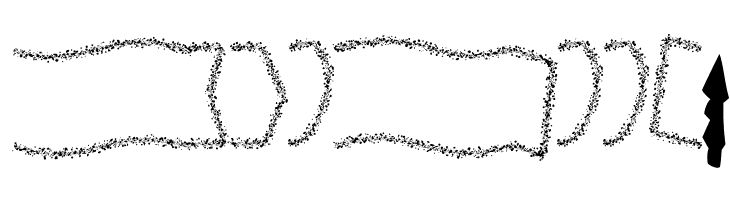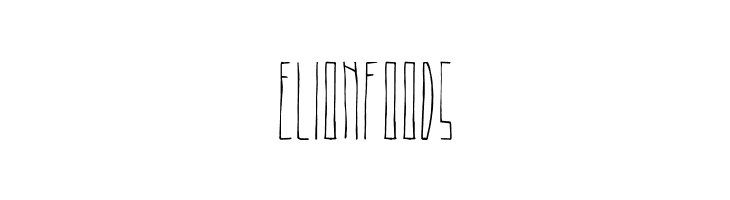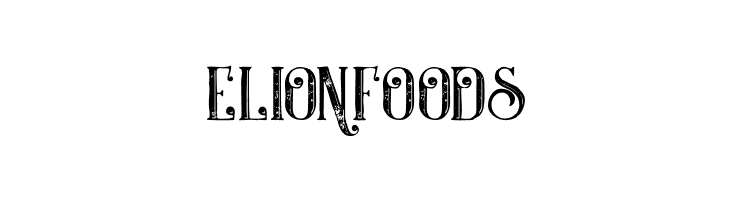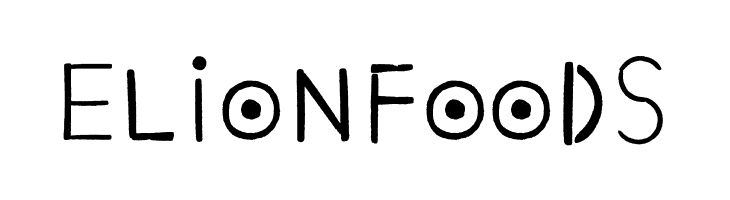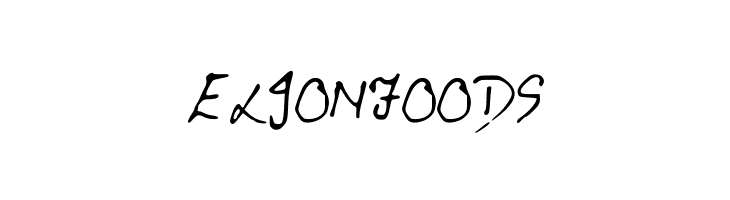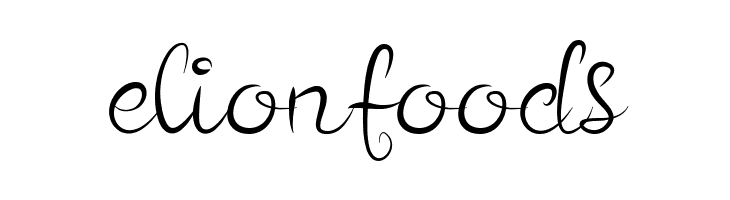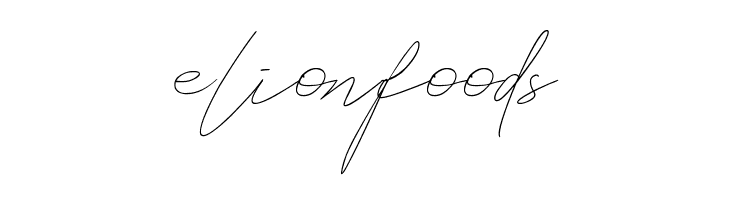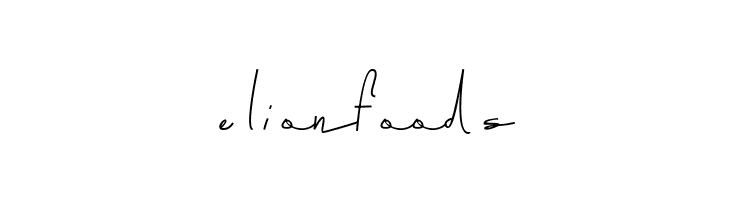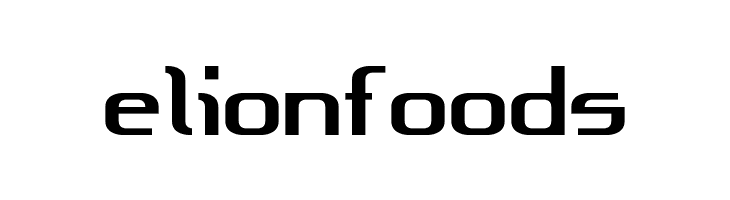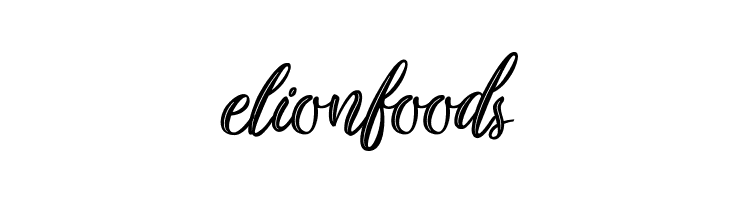
Festive, decorative banners and ribbons with varied edges and embellishments.
A tall, narrow, hand-drawn font with a unique, artistic style.
A grunge-style font with an inline design and decorative serifs, offering a vintage and textured appearance.
An artistic, hand-drawn font with bold, irregular strokes and geometric elements.
A lively, handwritten-style font with dynamic strokes and artistic flair.
An elegant script font with graceful curves and ornate flourishes.
A graceful script font with flowing, interconnected letters and bold numerals.
An artistic, handwritten-style font with flowing, interconnected strokes.
A modern, geometric font with bold, angular shapes and a clean design.
A decorative cursive font with elegant, flowing strokes and artistic flourishes.